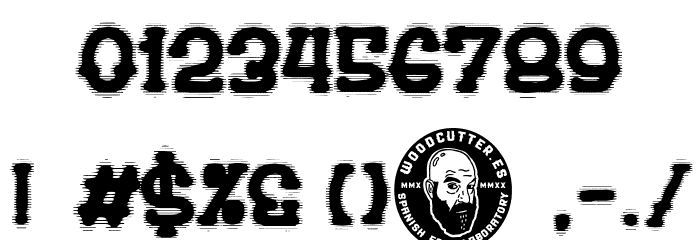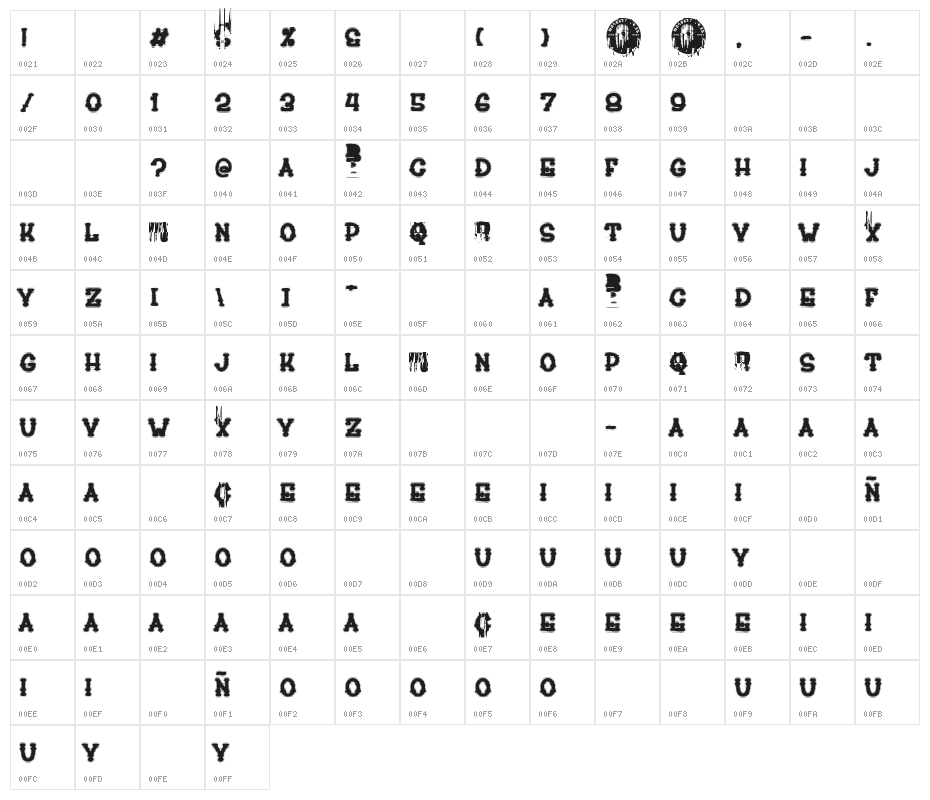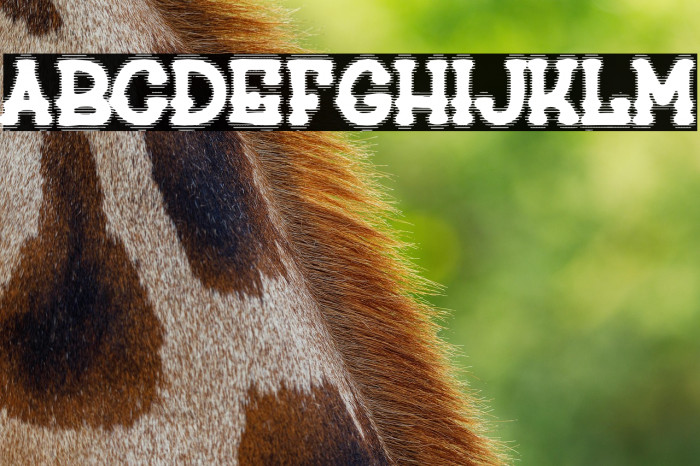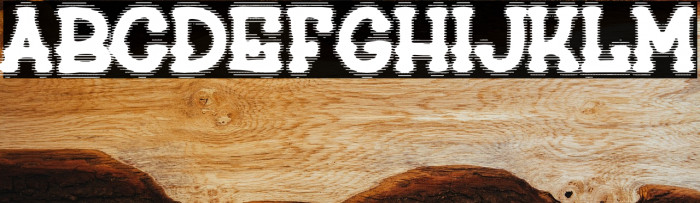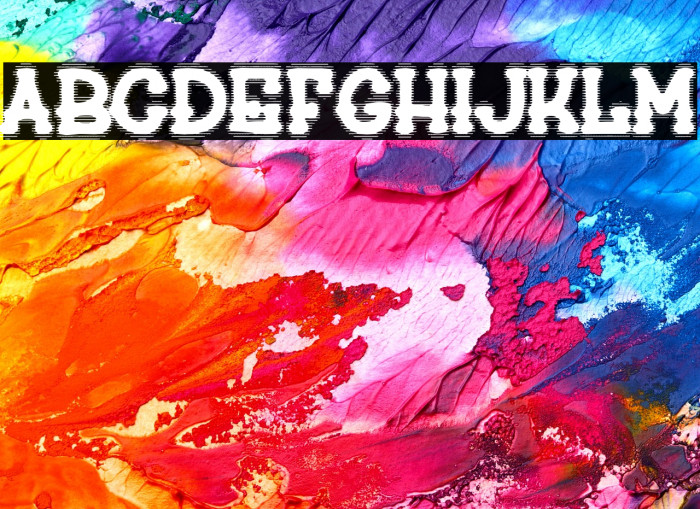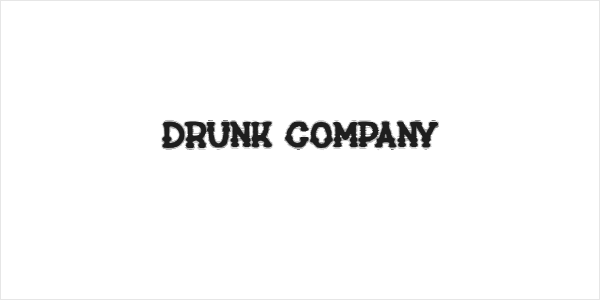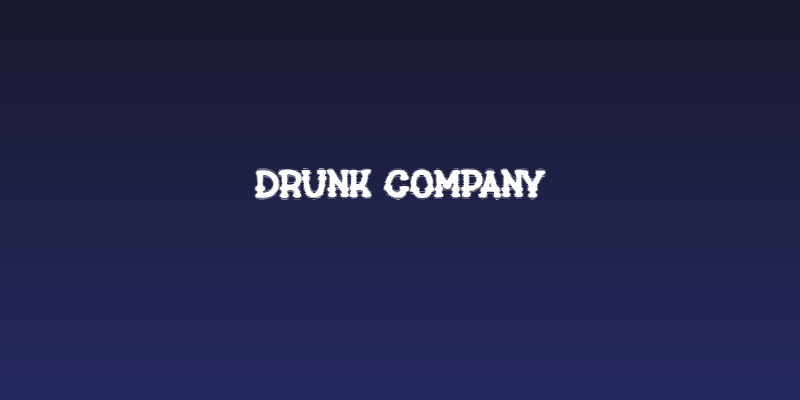
drunk company Font
drunk company Description
This font features a bold and dynamic style with a distressed, grunge-like appearance. The characters are heavily textured, giving them a rough, hand-drawn look that adds a sense of movement and energy. The uppercase and lowercase letters maintain a consistent design, with thick strokes and uneven edges that create a visually striking effect. The numbers and special characters follow the same aesthetic, ensuring a cohesive look across all elements. This font is ideal for projects that require a bold statement or an edgy, artistic vibe.
| Proposed Projects | Ideal for posters, album covers, branding for edgy products, or any design needing a bold, artistic touch. |